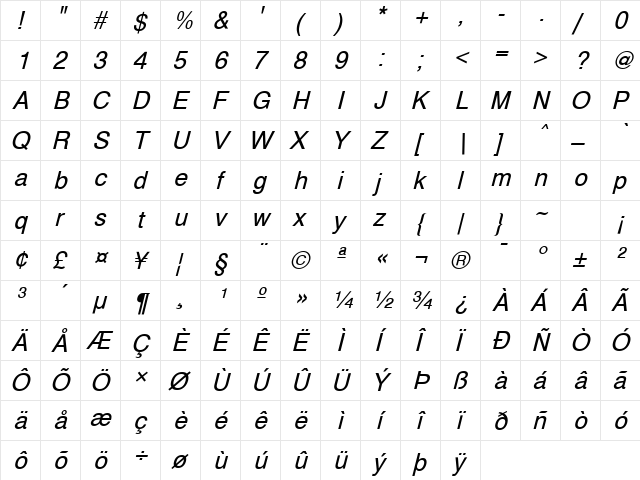
PP-Helvetic Normal-Italic
Design Context for PP-Helvetic Typeface
PP-Helvetic offers clean, dependable letterforms without strong stylistic allegiance, making it a practical choice for designers who need flexibility. The slanted form adds forward momentum and visual energy.
Pro Tip: Try PP-Helvetic for annotation and caption copy alongside an upright companion — the contrast in angle creates a dynamic but ordered typographic system.